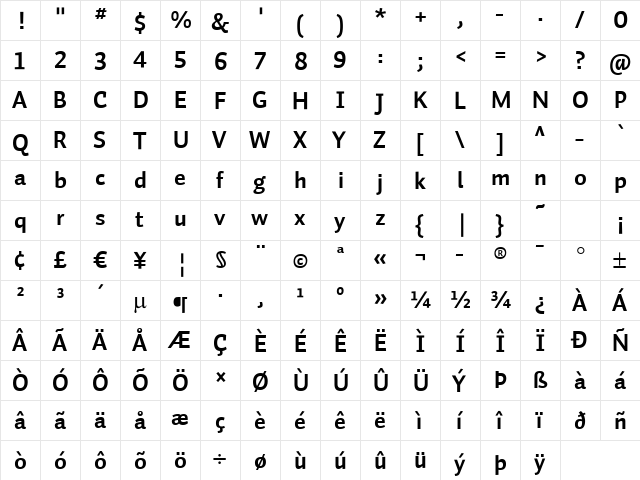
Auto 3 Bold LF
Design Context for Auto 3 Typeface
Auto 3 takes a measured approach to typography — its balanced proportions and neutral character make it a reliable workhorse for both digital and print work. The heavy weight commands attention and anchors typographic hierarchies.